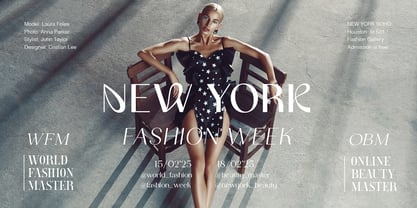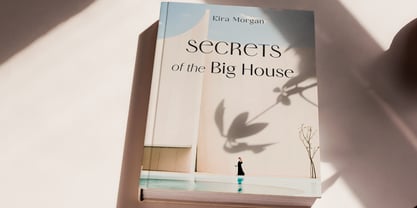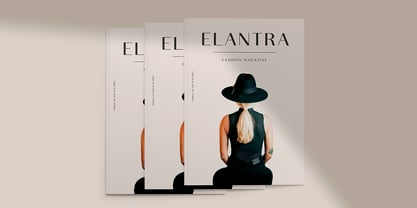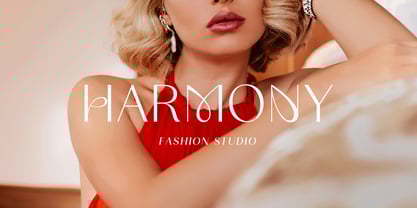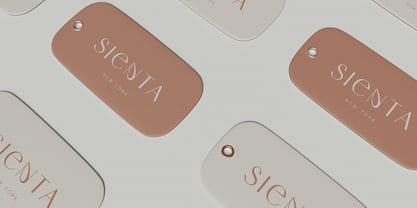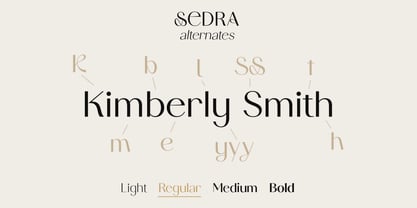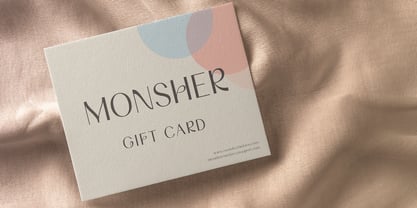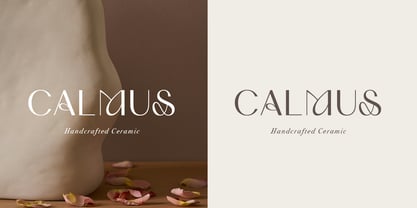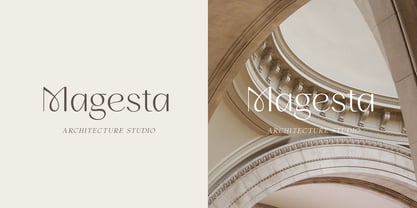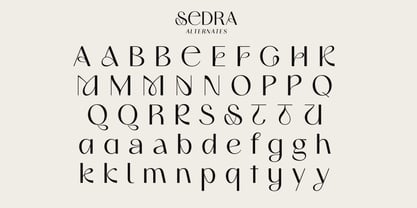
Sedra
by Larin Type Co
The Sedra Font Family was designed by Pavel Larin and published by Larin Type Co. Sedra contains 8 styles and family package options. More about this family
Sedra is an elegant, modern and contrast sans-serif font family, and a great fashionable solution for your project. It includes upright and Italic style, each of them has four weights from light to bold, It also includes quirky and playful alternatives that will add dynamism and authenticity to your project. This is a multi-purpose font that is perfect for modern project, it is contrasted, elegant and easy to read. With it, you can create logos, banners, use in advertising, packaging, book covers and magazines, headings, descriptions and much more.